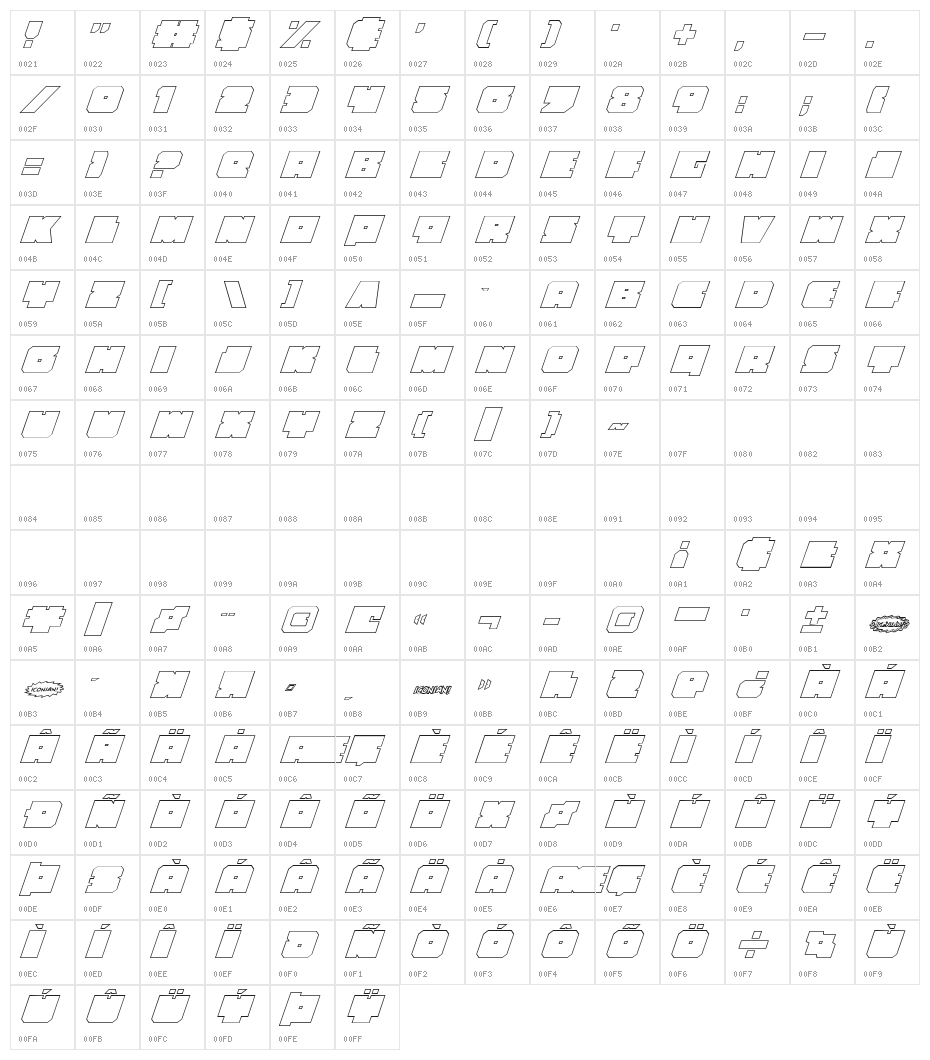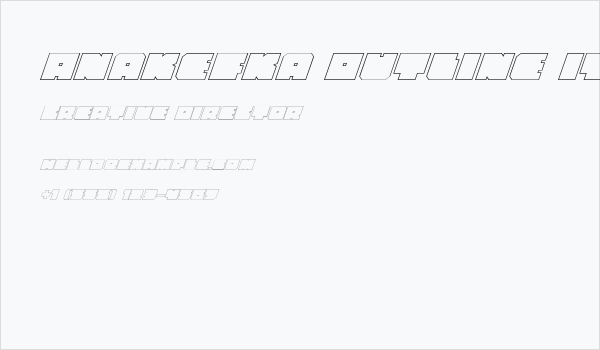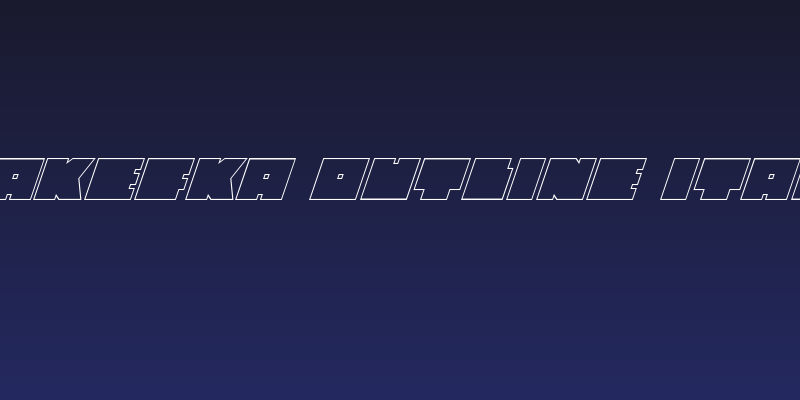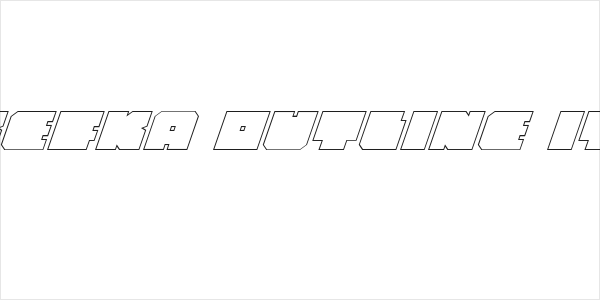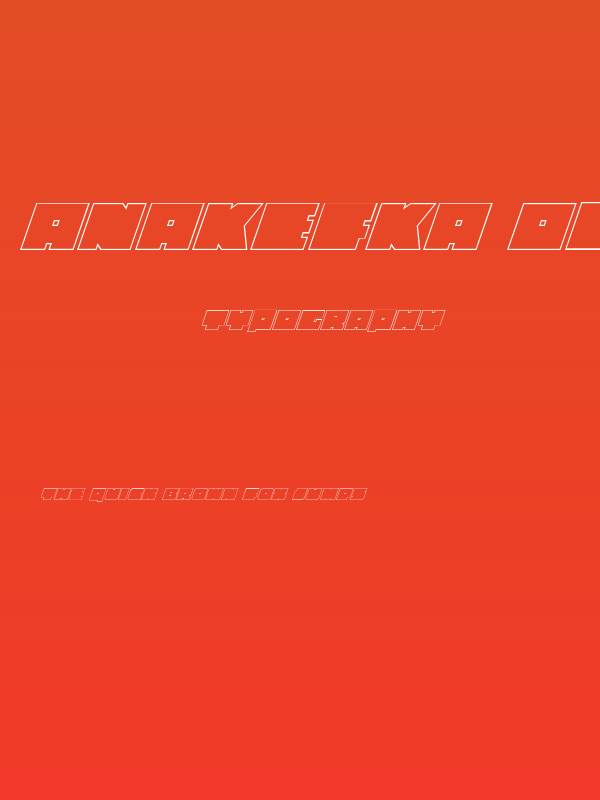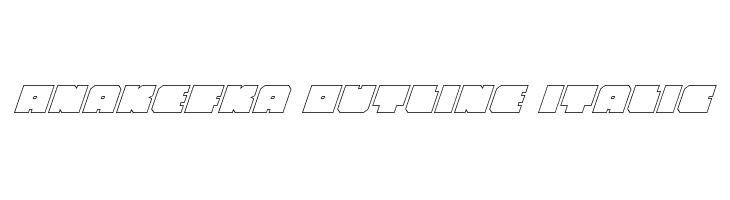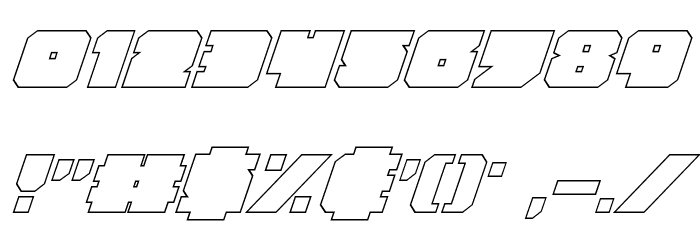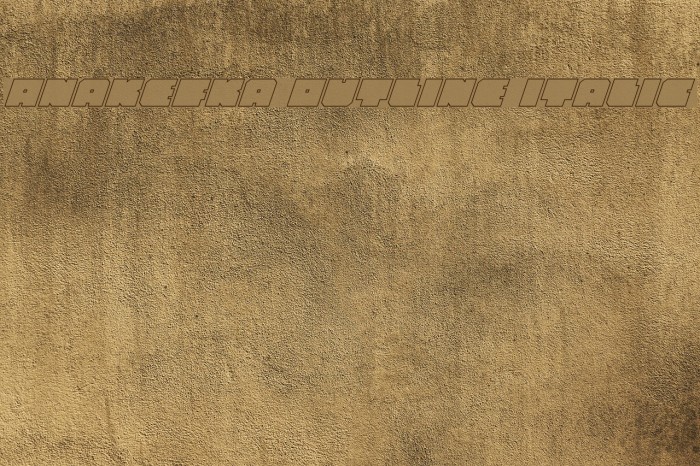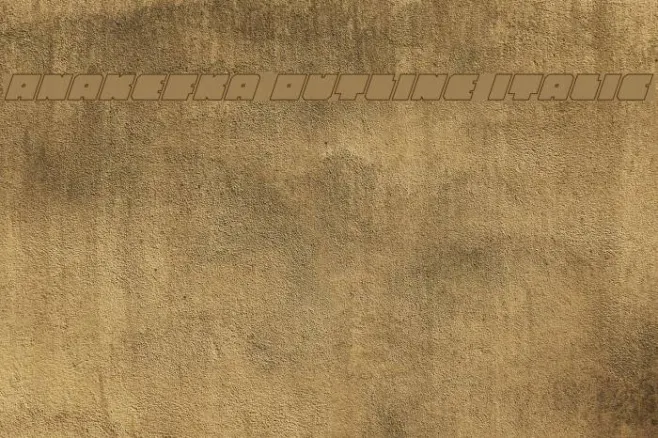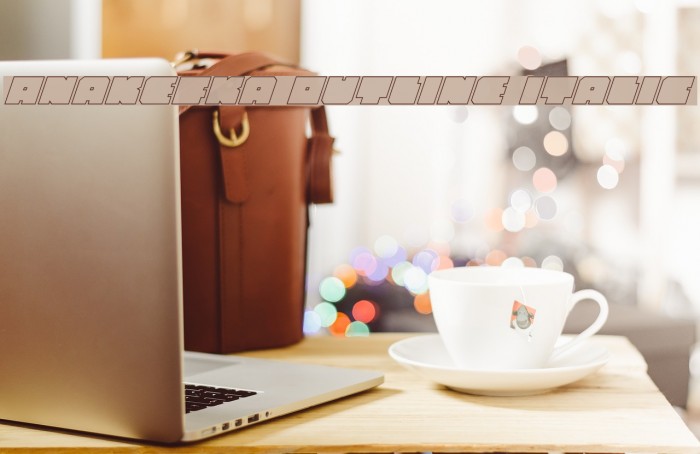
Anakefka Outline Italic Font
Anakefka Outline Italic Description
This font features a bold, geometric outline style with a distinct italic slant, giving it a dynamic and modern appearance. The characters are constructed with sharp angles and clean lines, creating a futuristic and edgy look. The uppercase and lowercase letters maintain a consistent height, contributing to a uniform and cohesive design. The numerals and special characters follow the same stylistic approach, ensuring visual harmony across all elements. The outline nature of the font adds a sense of depth and dimension, making it suitable for eye-catching designs.
| Overall Style | Futuristic |
| Proposed Projects | Ideal for sci-fi themed posters, video game titles, and modern branding projects. |